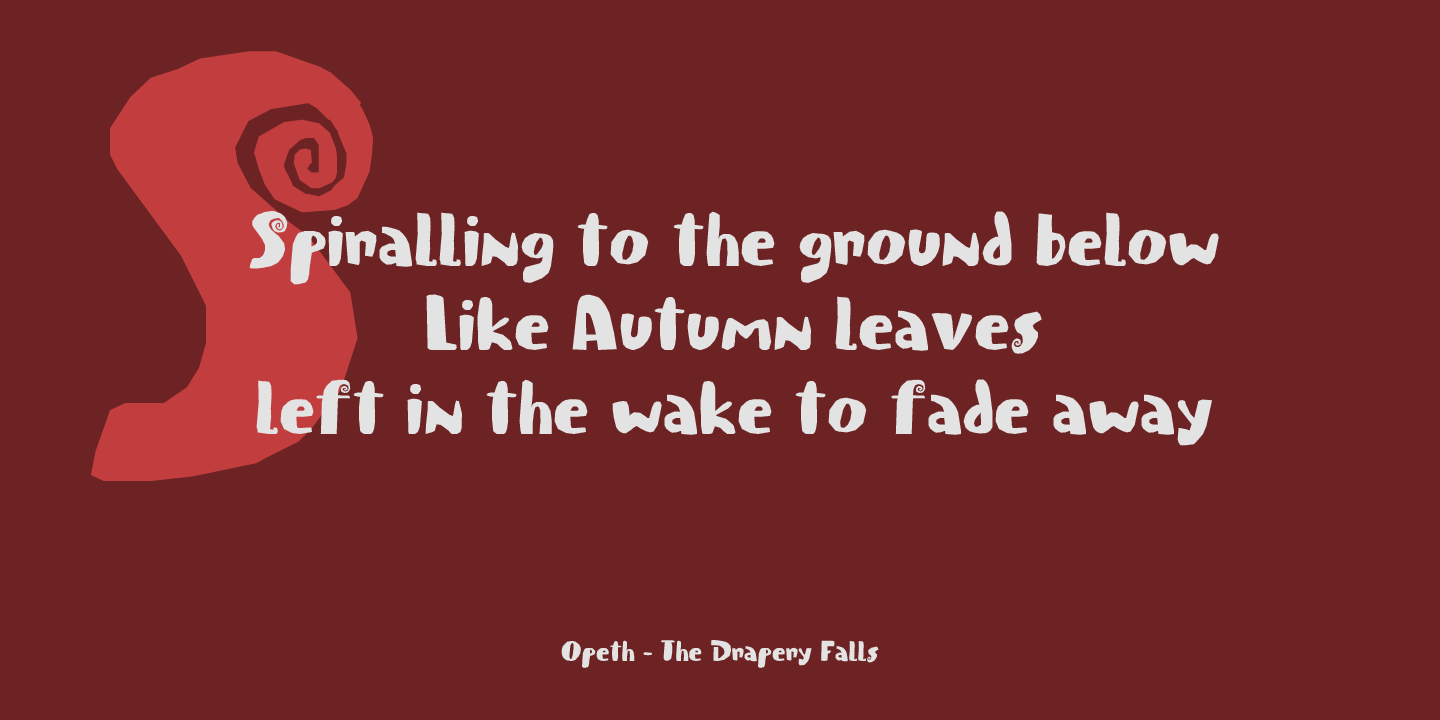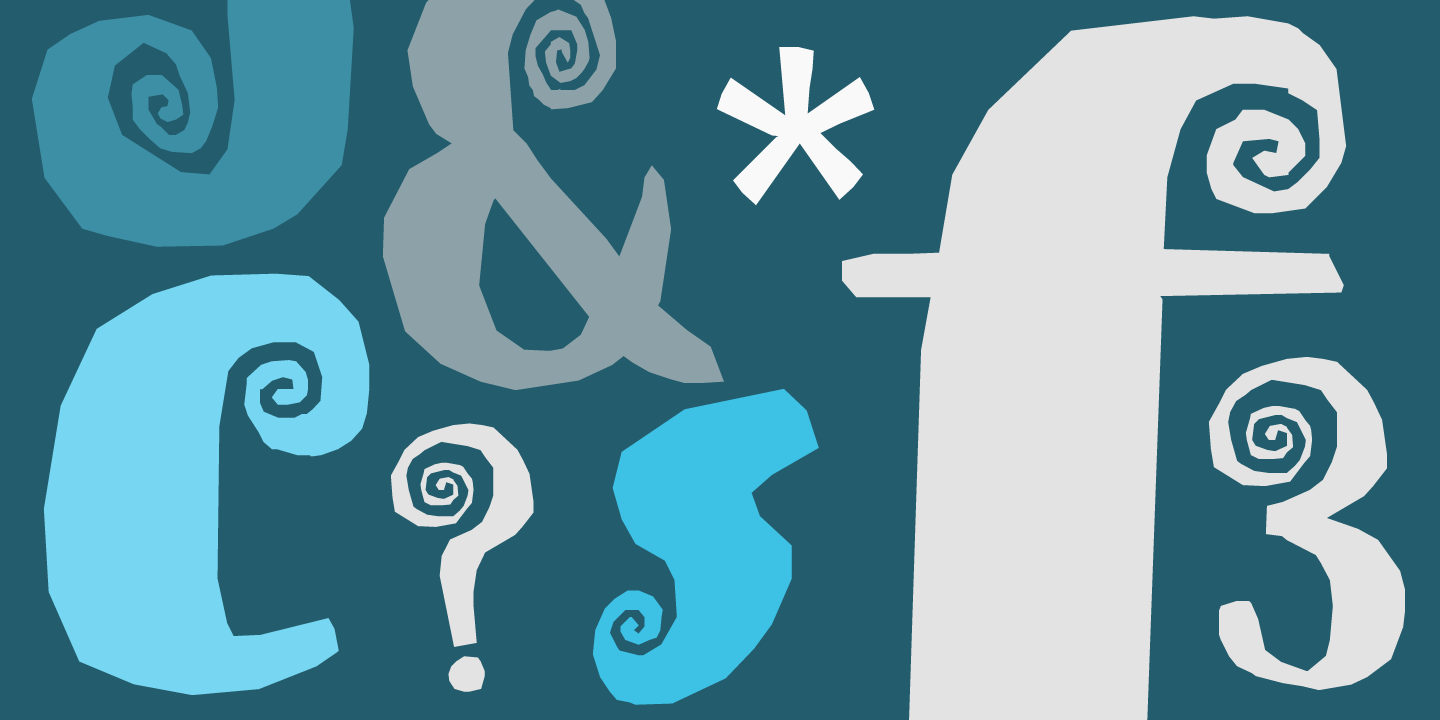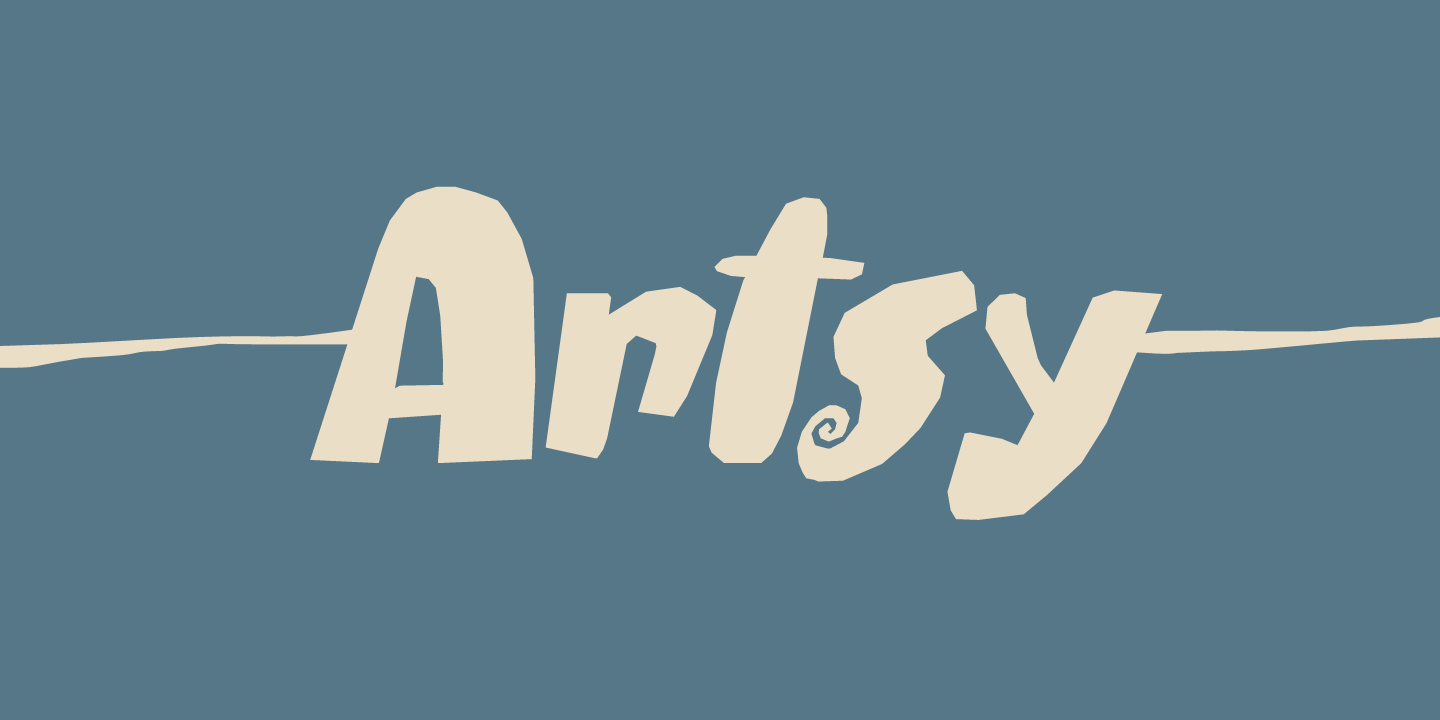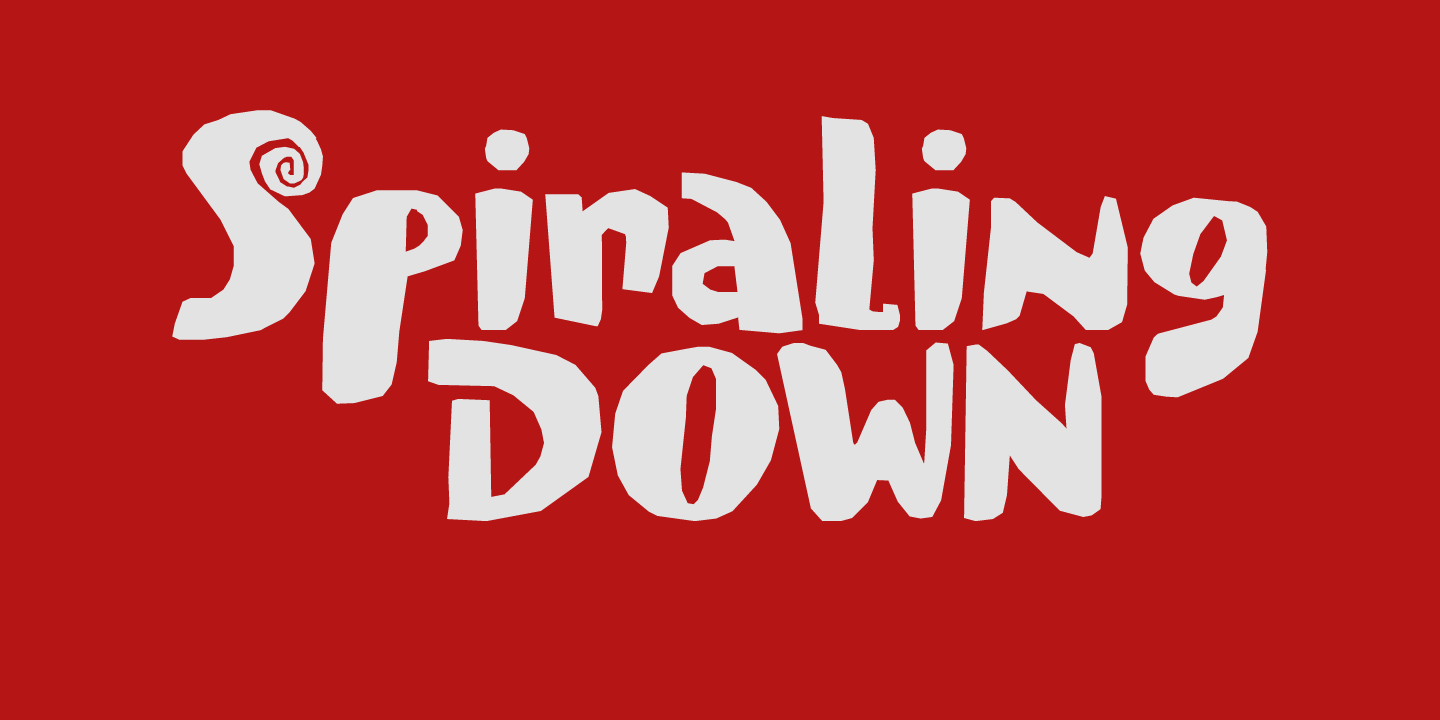
About Spiraling Down
I was listening to an Opeth album called Blackwater Park. By the time I had decided that this font needed some swirls, the band was playing a song called The Drapery Falls – which has the word \’spiraling? in it (see poster 2) – and the name was born.…